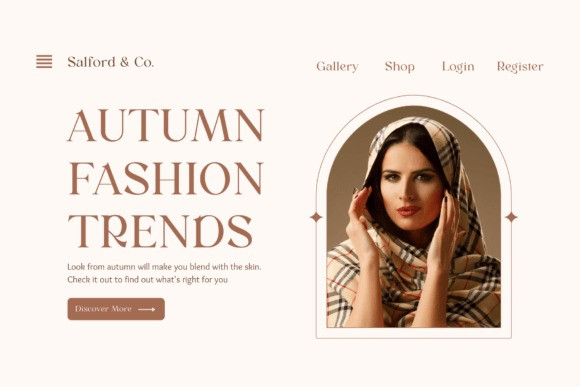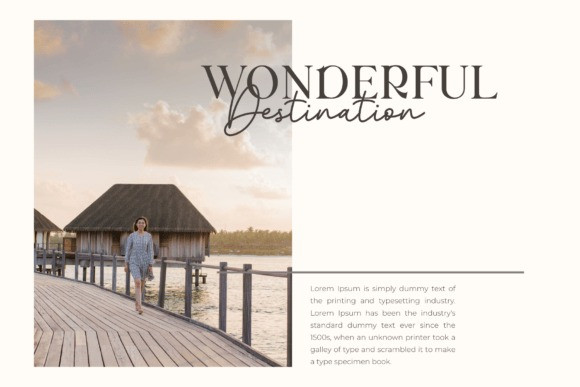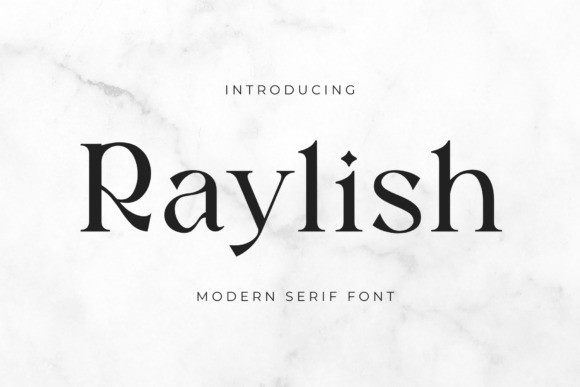
Raylish Font
Raylish Font is a sophisticated, charming serif font with a fashionable touch. Due to its luxurious appearance, the font can be an incredible fit for deluxe and chic design ideas.